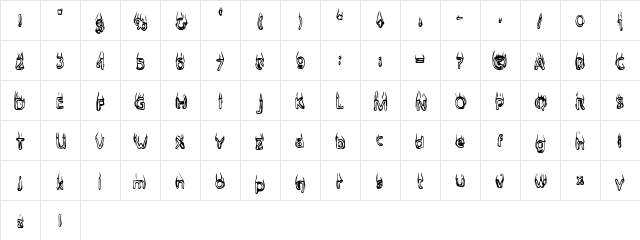
Bailey'sCar Regular Free Font
Bailey'sCar Regular
Complete Bailey'sCar Regular glyph index. Displaying only characters natively supported by Bailey'sCar Regular font.
Design Context for Bailey'sCar
Bailey'sCar is a composed and adaptable typeface that performs quietly and consistently across a wide range of design contexts.